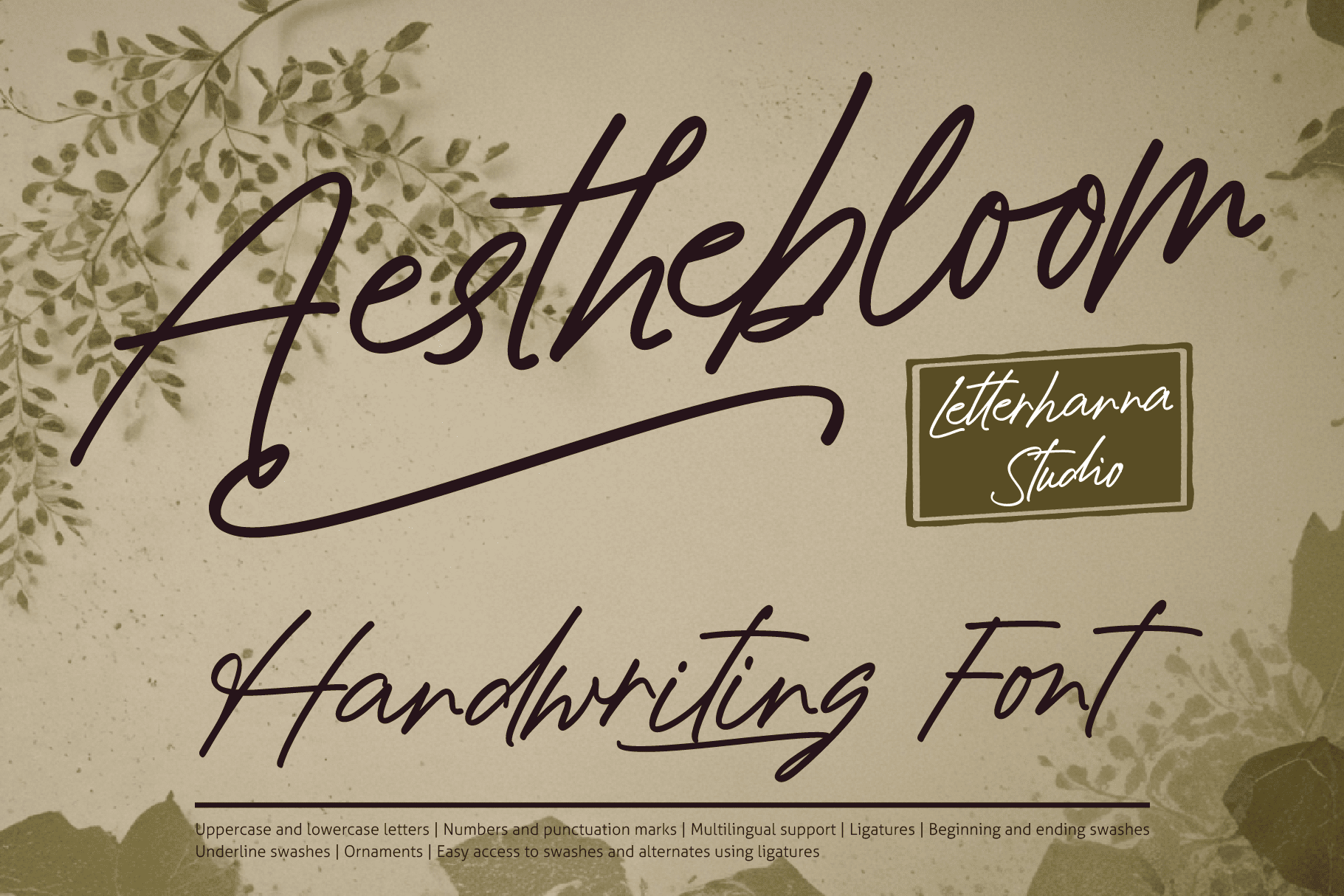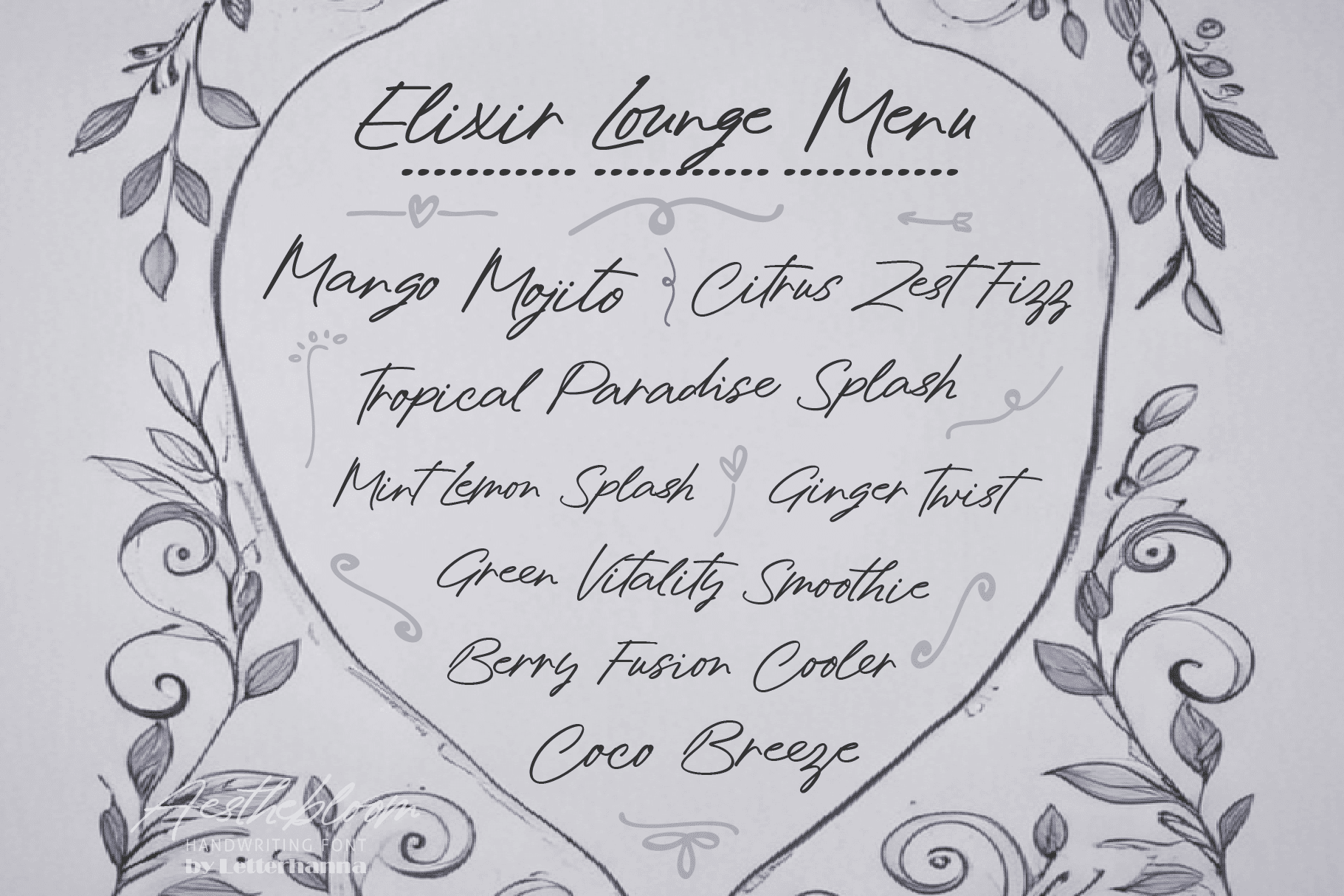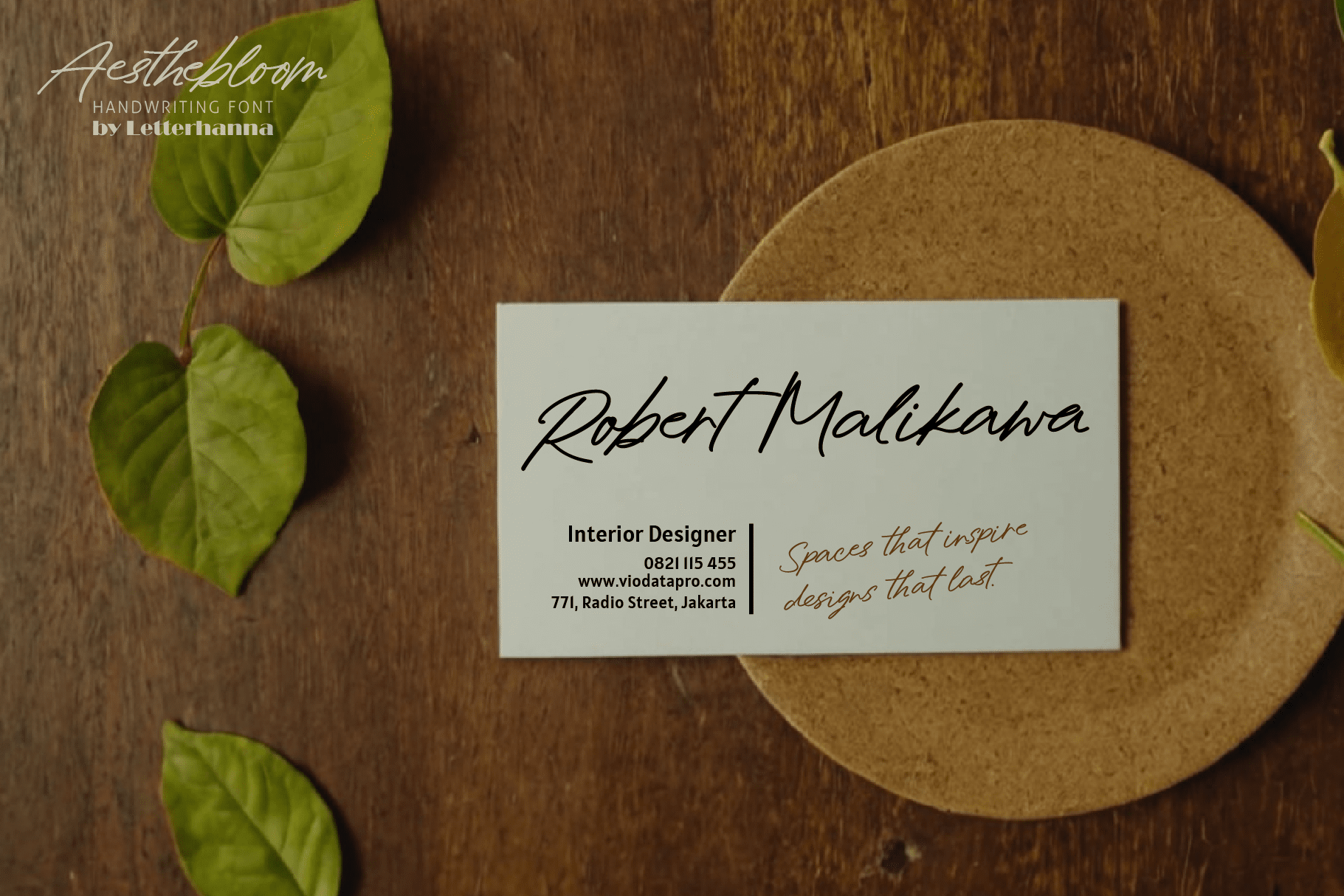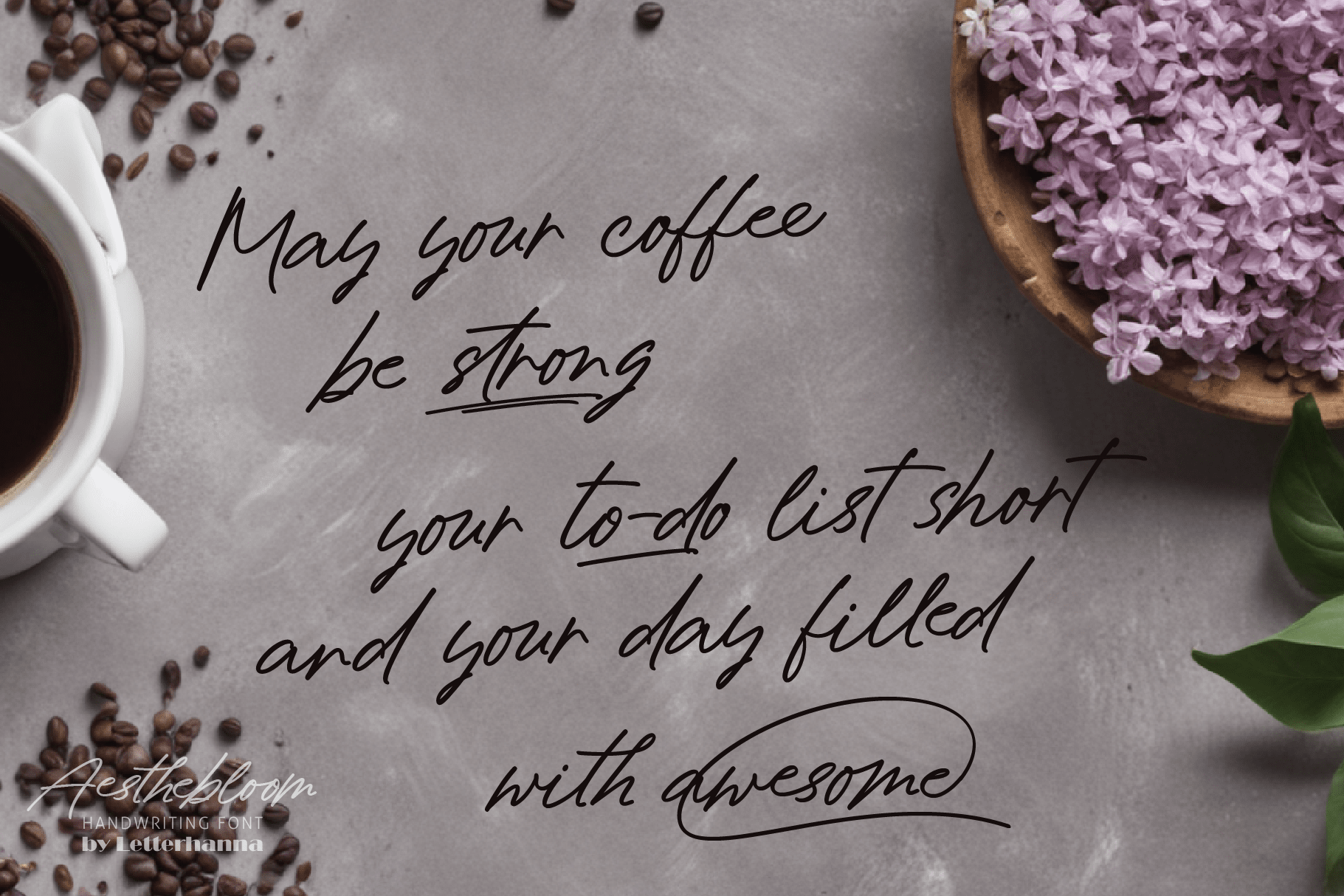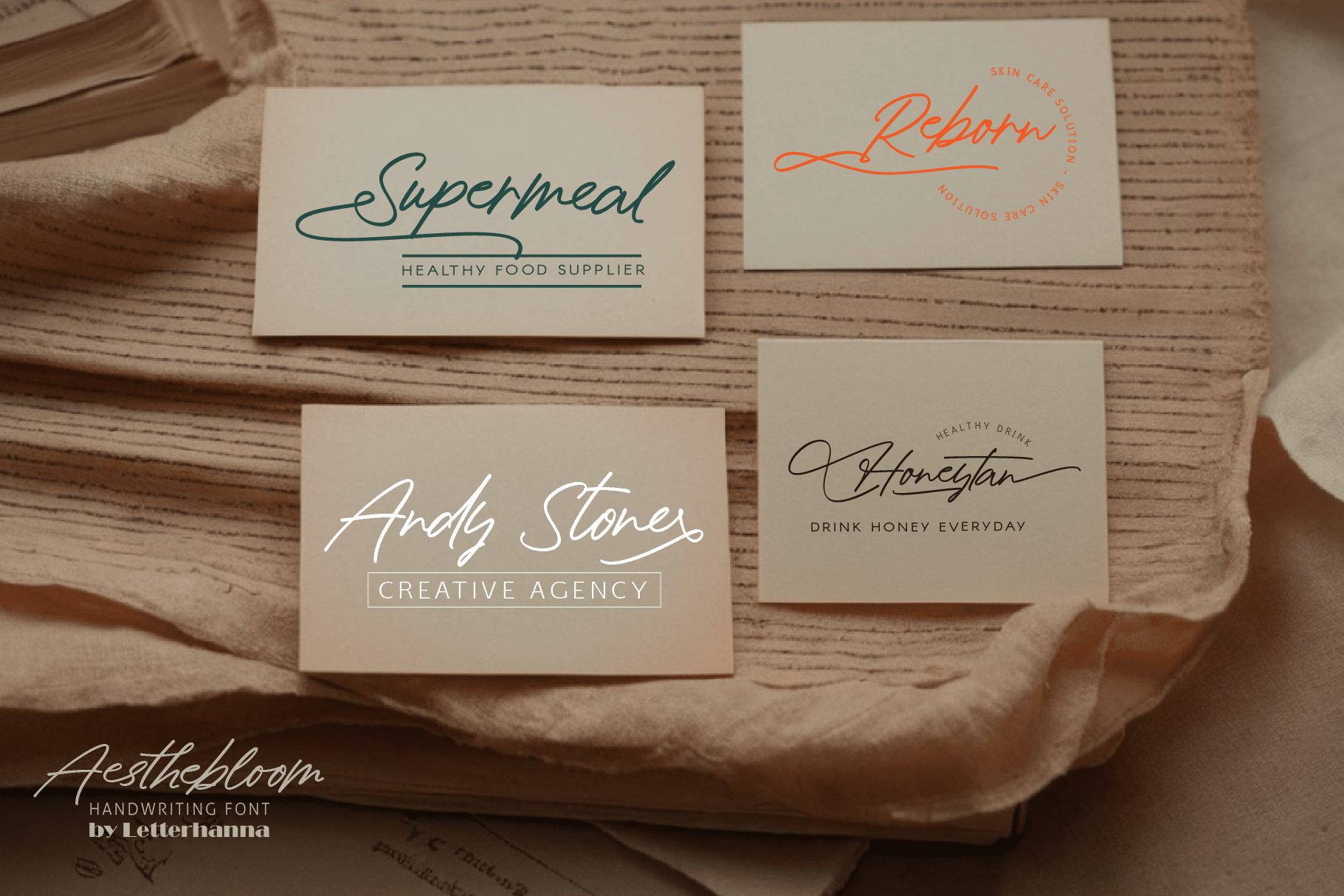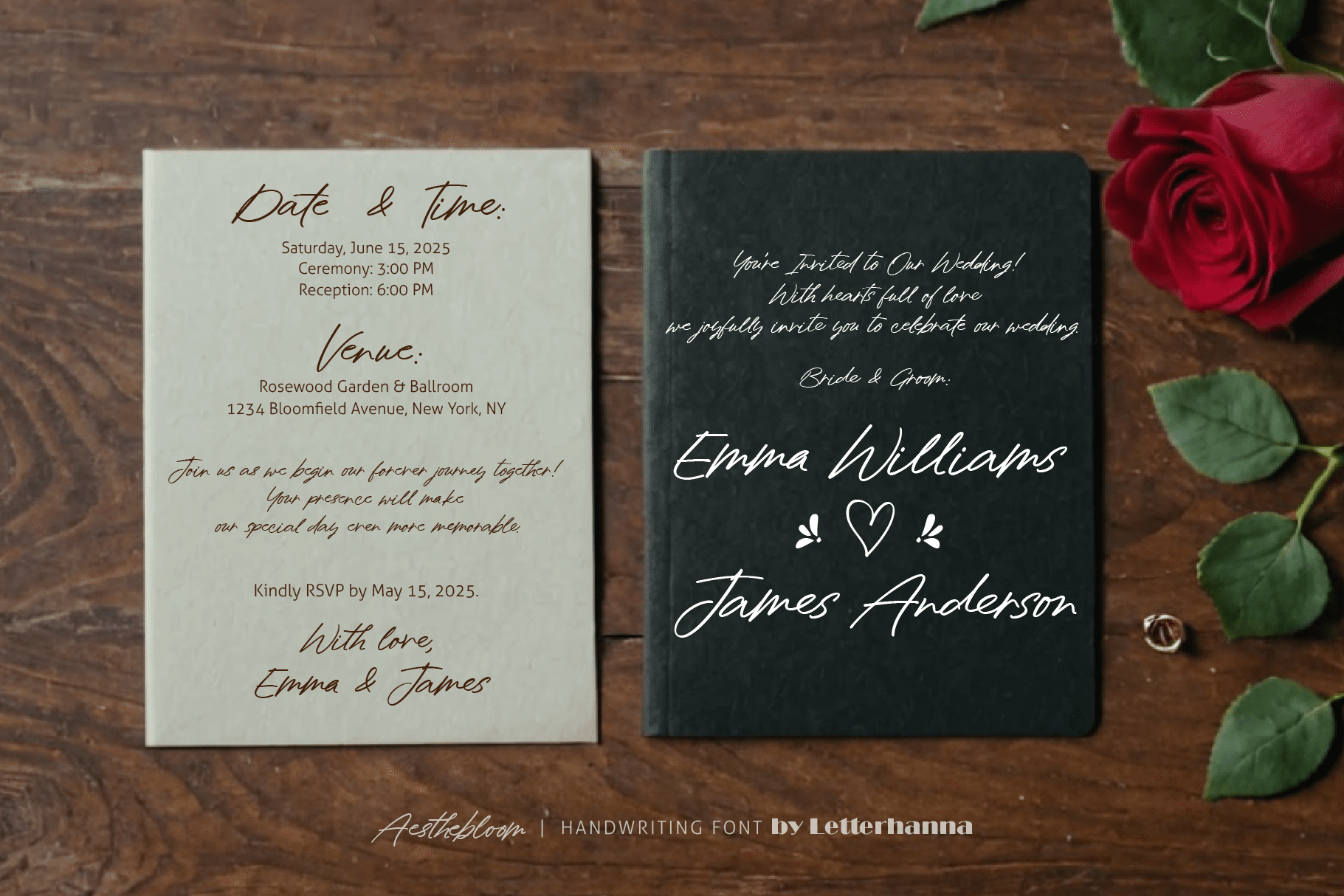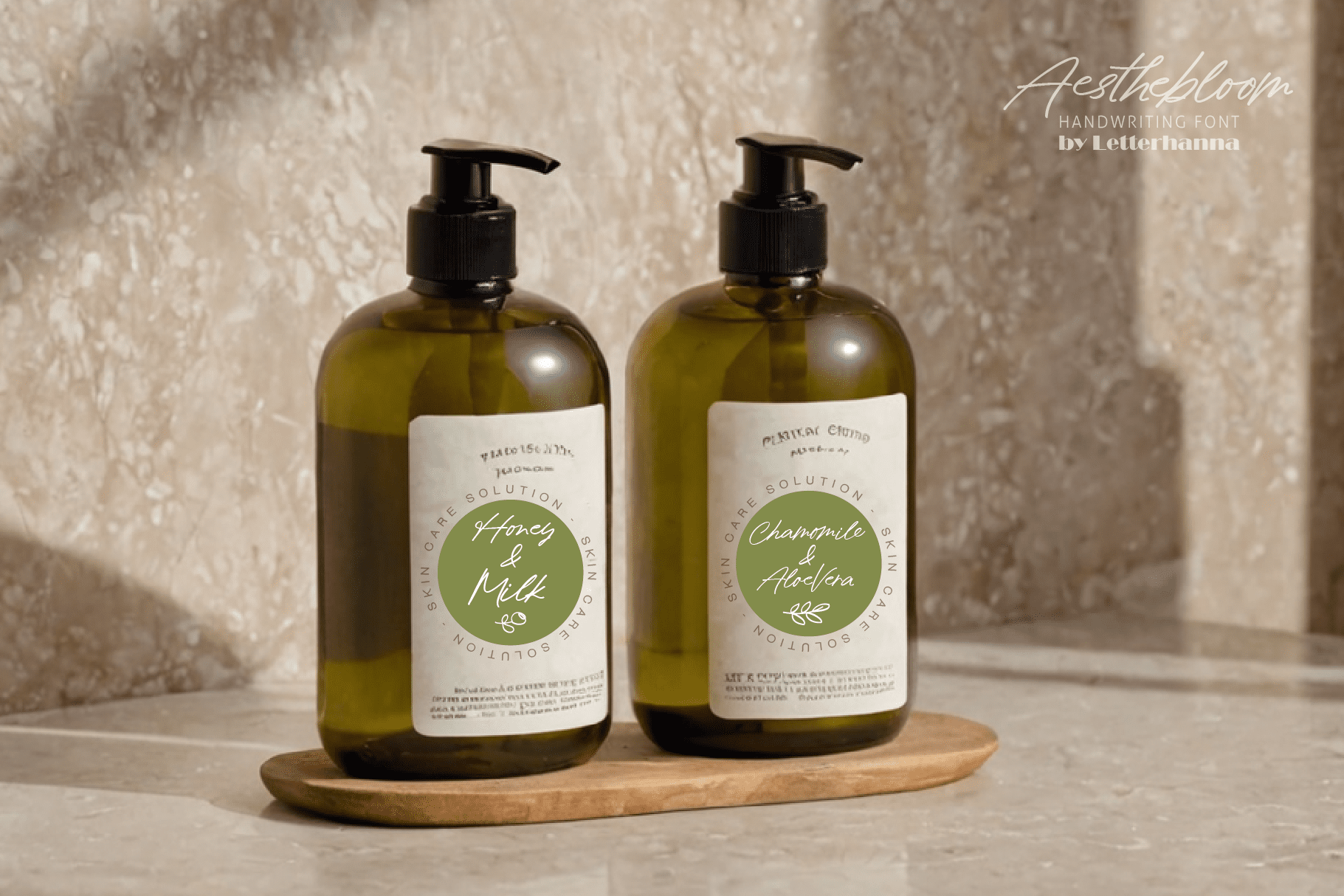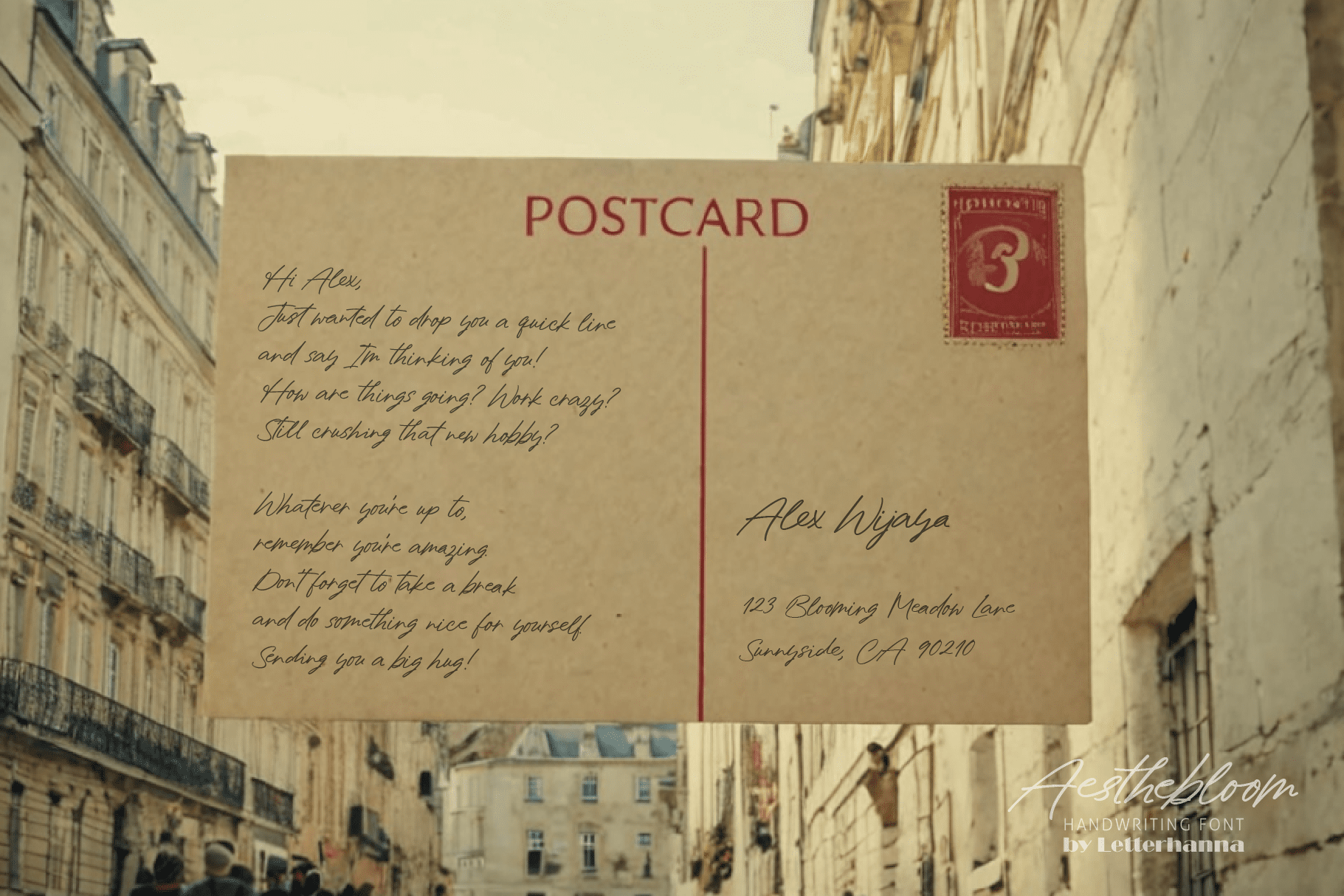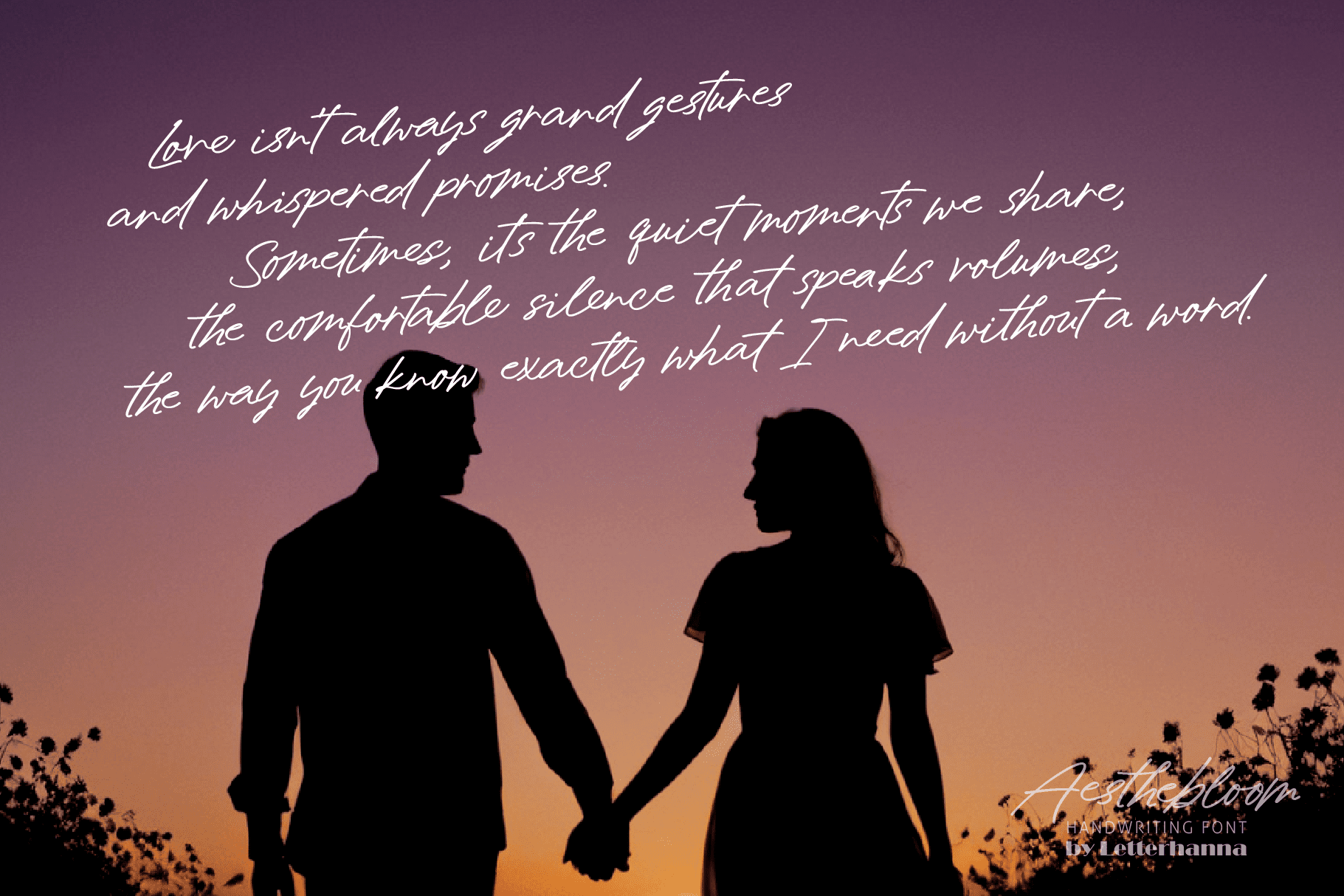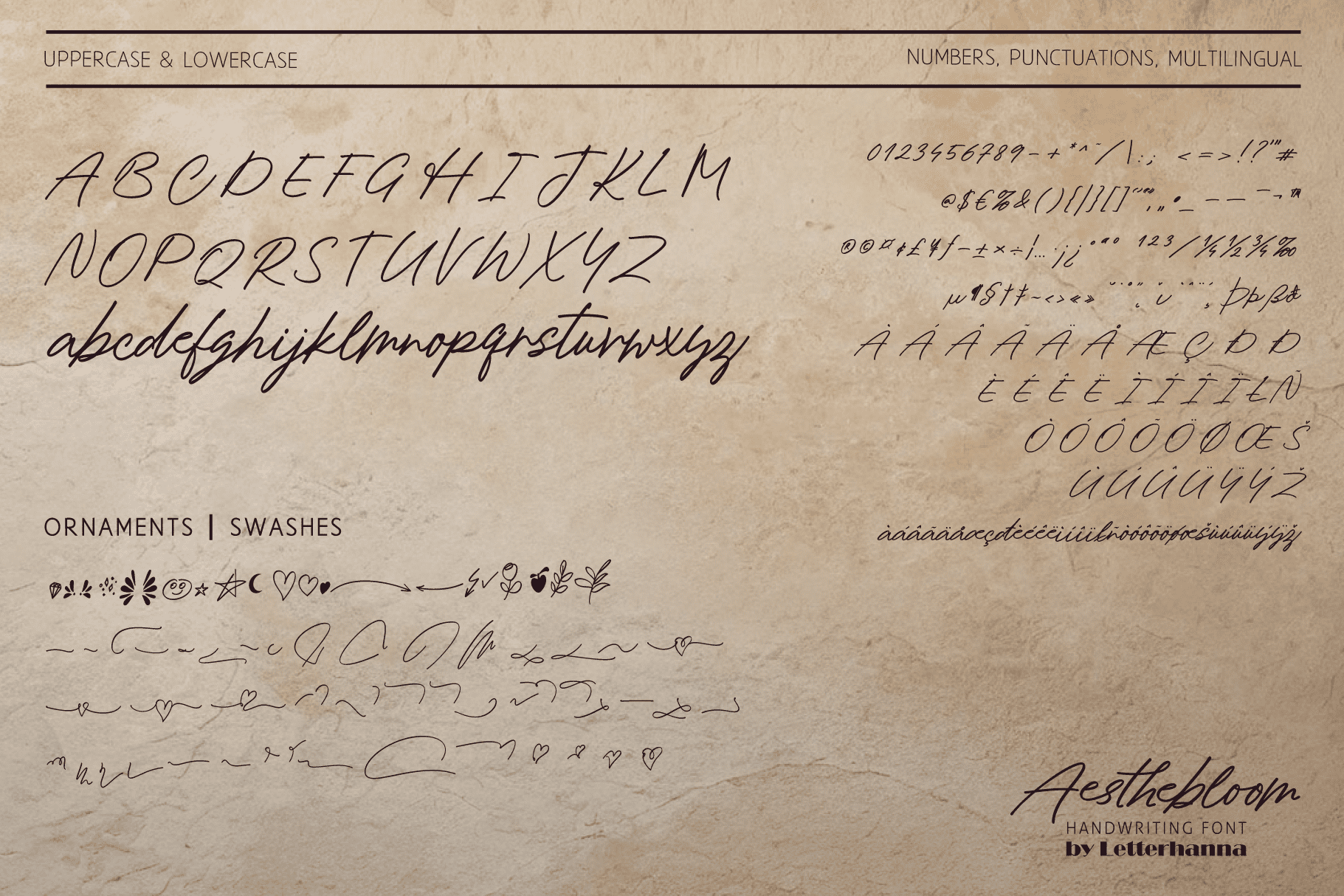
Introducing Aesthebloom Handwriting Font, a beautifully crafted script font that embodies elegance and artistic charm. Designed with a natural, flowing style, Aesthebloom captures the essence of hand-drawn lettering with smooth curves and graceful strokes. Perfect for branding, wedding invitations, social media graphics, and creative projects, this font brings warmth and sophistication to any design.
Aesthebloom Handwriting Font offers an extensive collection of stylistic alternates, swashes, and ligatures, allowing you to personalize your text with unique and expressive details. Whether you’re looking for a modern chic vibe or a timeless calligraphic touch, this font adapts effortlessly to your creative vision. Elevate your typography with Aesthebloom and make every word a work of art.
Β Easy Access to Glyphs and Swashes
Gain easy access to all alternate glyphs, swashes, ornaments, and underlines by simply using ligatures. You can try them out yourself in the font preview tool on our website, letterhanna.com
- Underline Swashes: Use a hyphen symbol “-” followed by a number between 1 and 50. For example, type “-3”, “-22”, or “-17” to get various underline swashes.
- Head/Beginning Swashes: Use a dollar sign “$” followed by a number between 1 and 15. For example, type “$2” or “$8” to get different head/beginning swashes.
- Tail/Ending Swashes: Use a percent sign “%” followed by a number between 1 and 33. For example, type “%3” or “%15” to get various tail/ending swashes.
- Ornaments: Use an “at” symbol “@” followed by a number between 1 and 21. For example, type “@4” or “@13” to get different ornament.